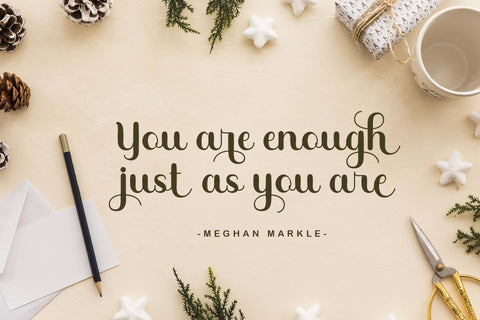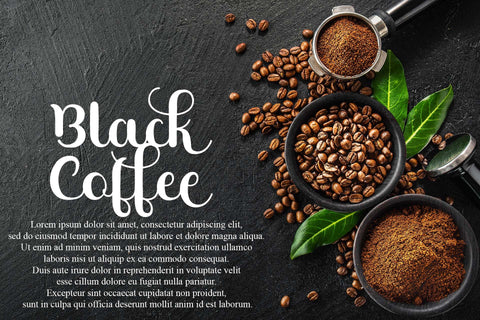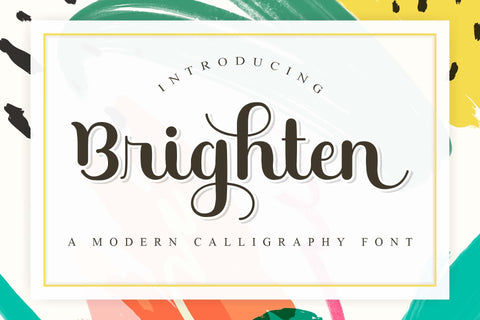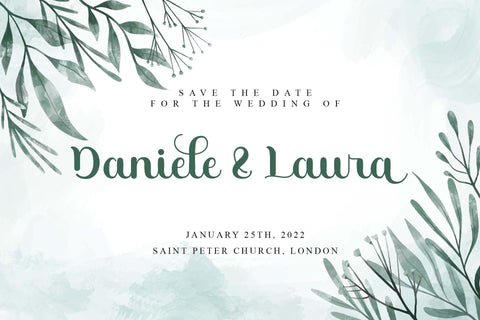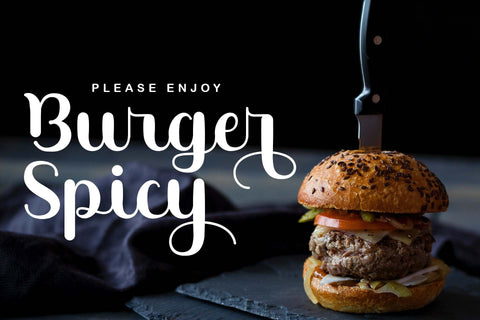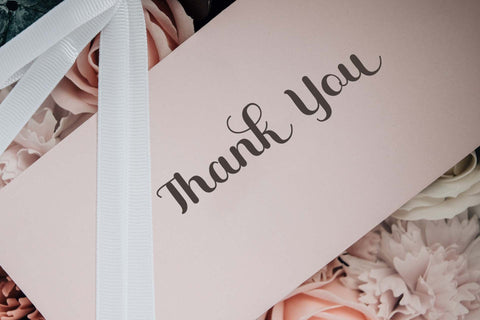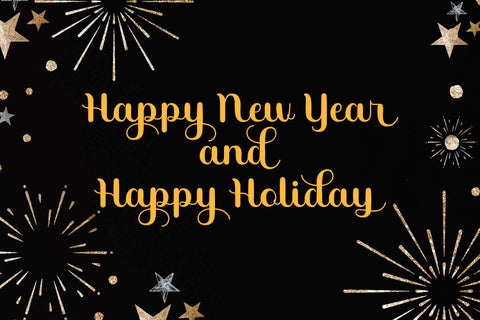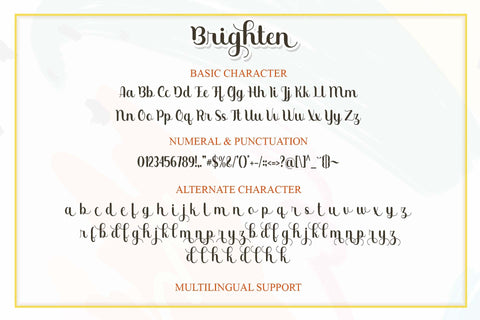
Brighten
Brighten is a bold, trendy, and stylish script font. It is PUA encoded, which means you can access all glyphs and swashes with ease!
Brighten will elevate a wide range of crafting ideas, from cards to branding, labels, and much more.